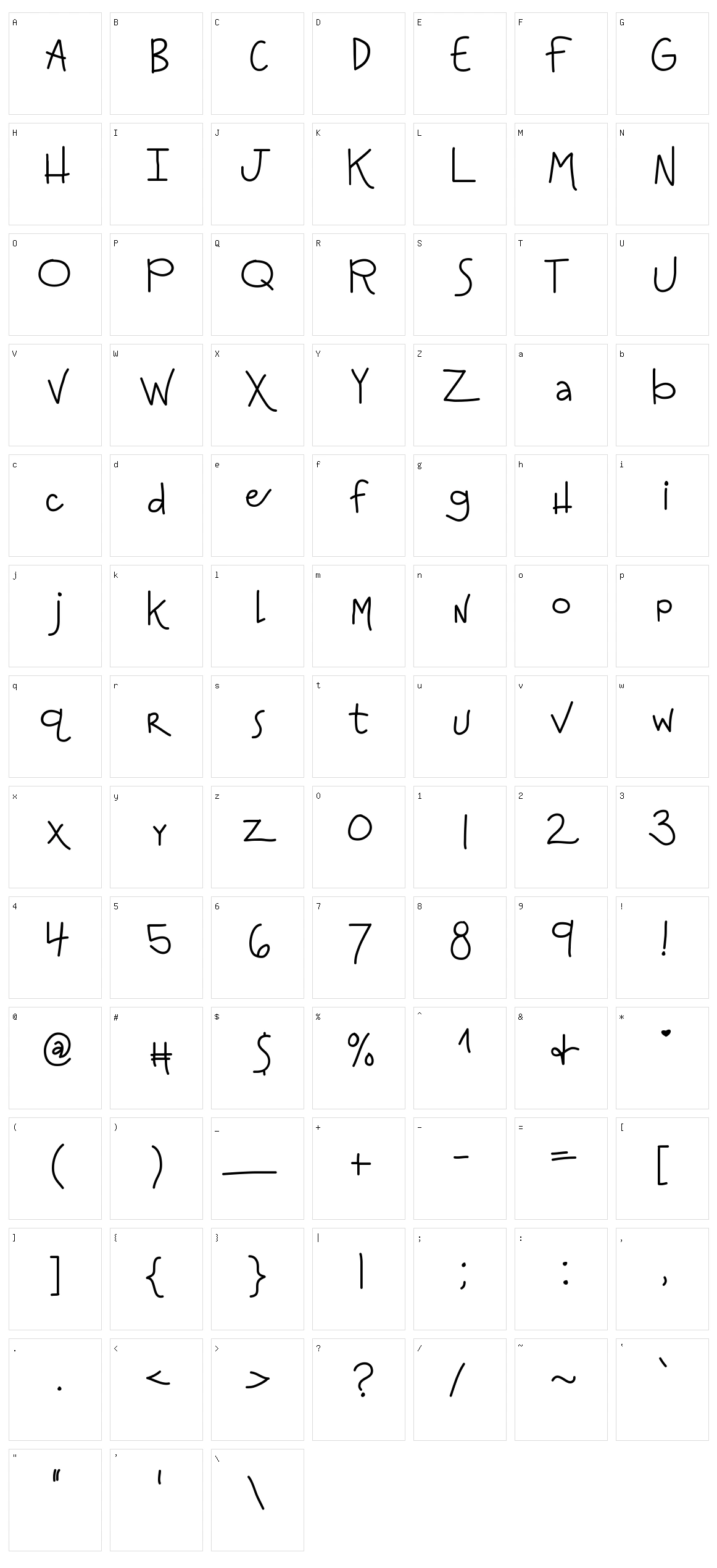
The free font KB And it slips my mind is carefully designed by Khrys Bosland, showcasing a thoughtful balance of creativity and usability and falls under the Script font style. When you download the ZIP file, it contains only 12.71 KB of font files, making it lightweight and quick to download. Please review the license details below to understand permitted usage and distribution rights. If license information is not available, we recommend using this font for personal projects only or contacting the author directly for commercial usage permissions.